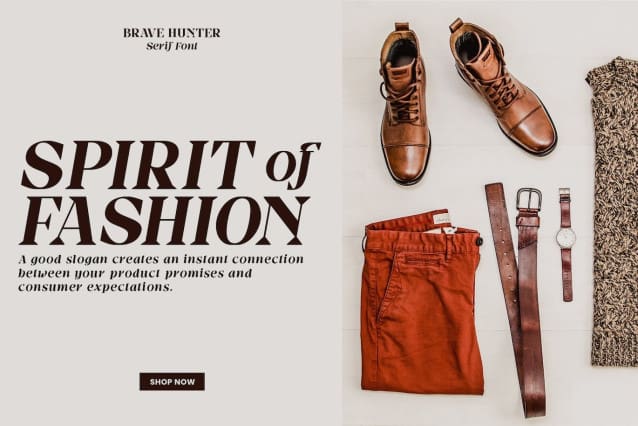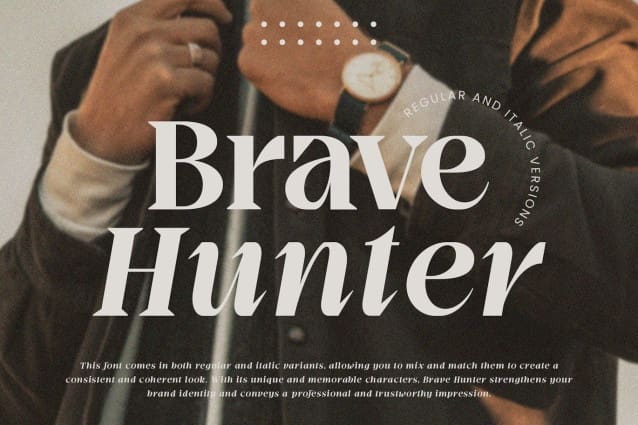
Brave Hunter Font
Brave Hunter Font is a meticulously designed modern serif font that aims to enhance the professional and luxurious look of your design projects. Its clean and elegant style makes it ideal for titles, logos and branding.
This font comes in both regular and italic versions, allowing you to mix and match them to create a cohesive, cohesive look. With its unique and memorable characters, BraveHunter reinforces your brand identity and gives a professional and trustworthy impression.
With comprehensive, high-quality OpenType features, Brave Hunter offers great design flexibility and ensures consistent output quality across different media. Whether you’re looking for a font for web design, print, or social media, itis here to help you improve the quality of your design.
With the Brave Hunter font, you can create elegant, professional and premium designs that will improve your brand image and make it more trustworthy. Don’t hesitate to choose Brave Hunter for all your design projects requiring a modern and professional serif font